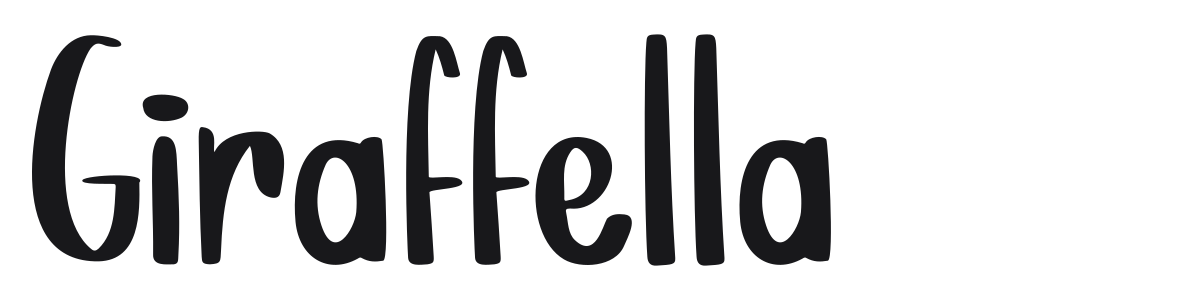
Giraffella
Giraffella is a bold casual hand-lettered script with chunky, upright strokes and a warm, friendly rhythm. The low stroke contrast and rounded terminals give it a soft, approachable quality that sits somewhere between a brush pen and a marker. It works well at large sizes for logos, packaging, and anything that needs personality without going fully decorative.